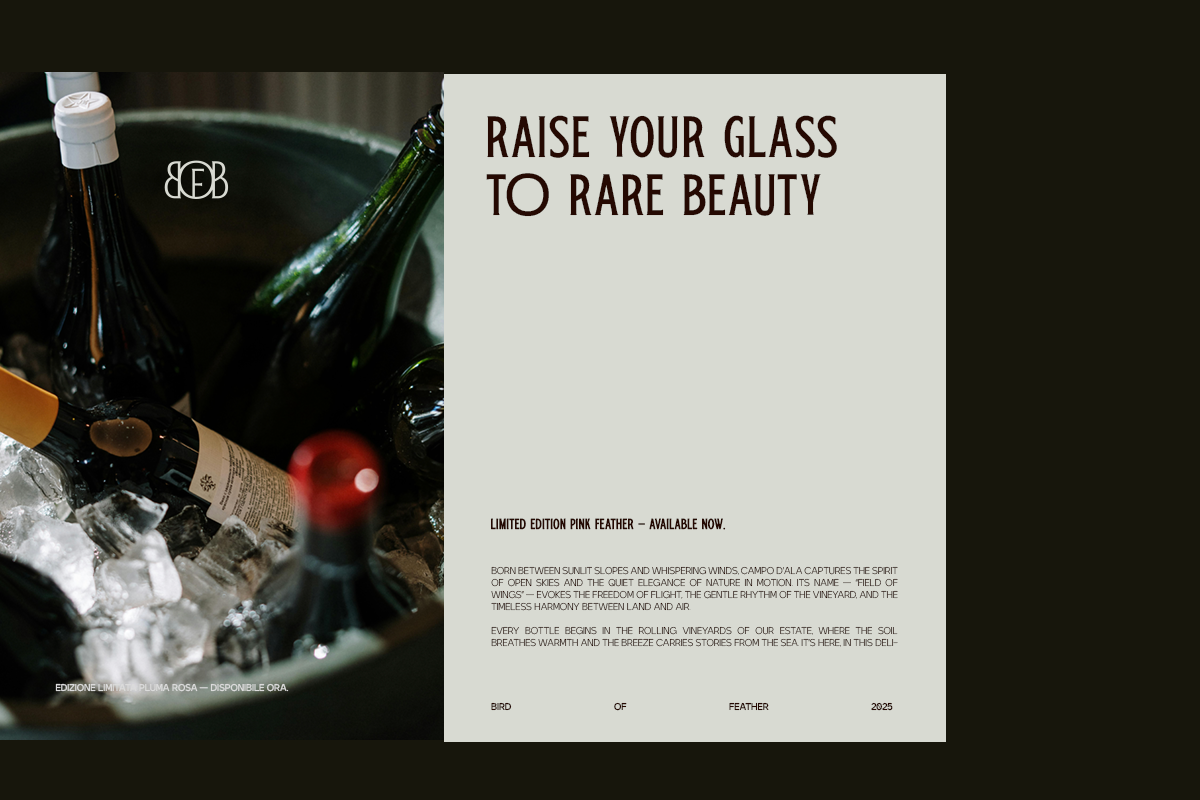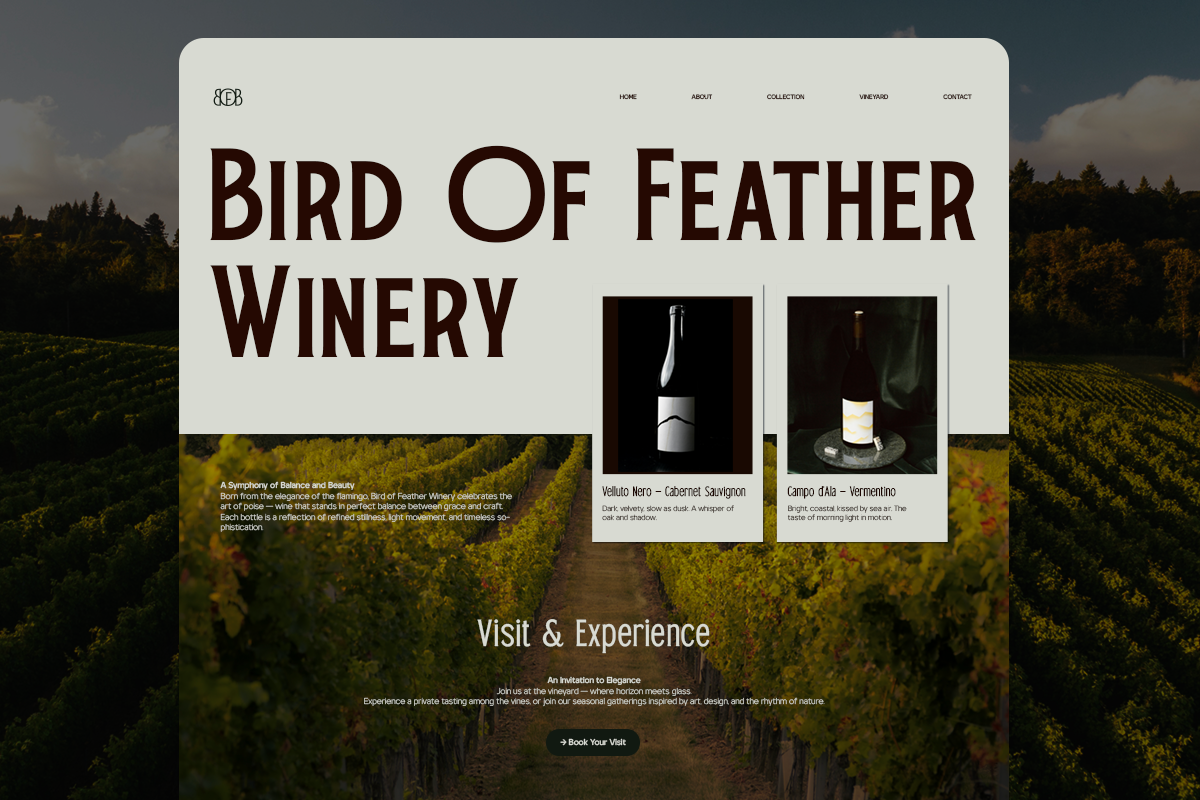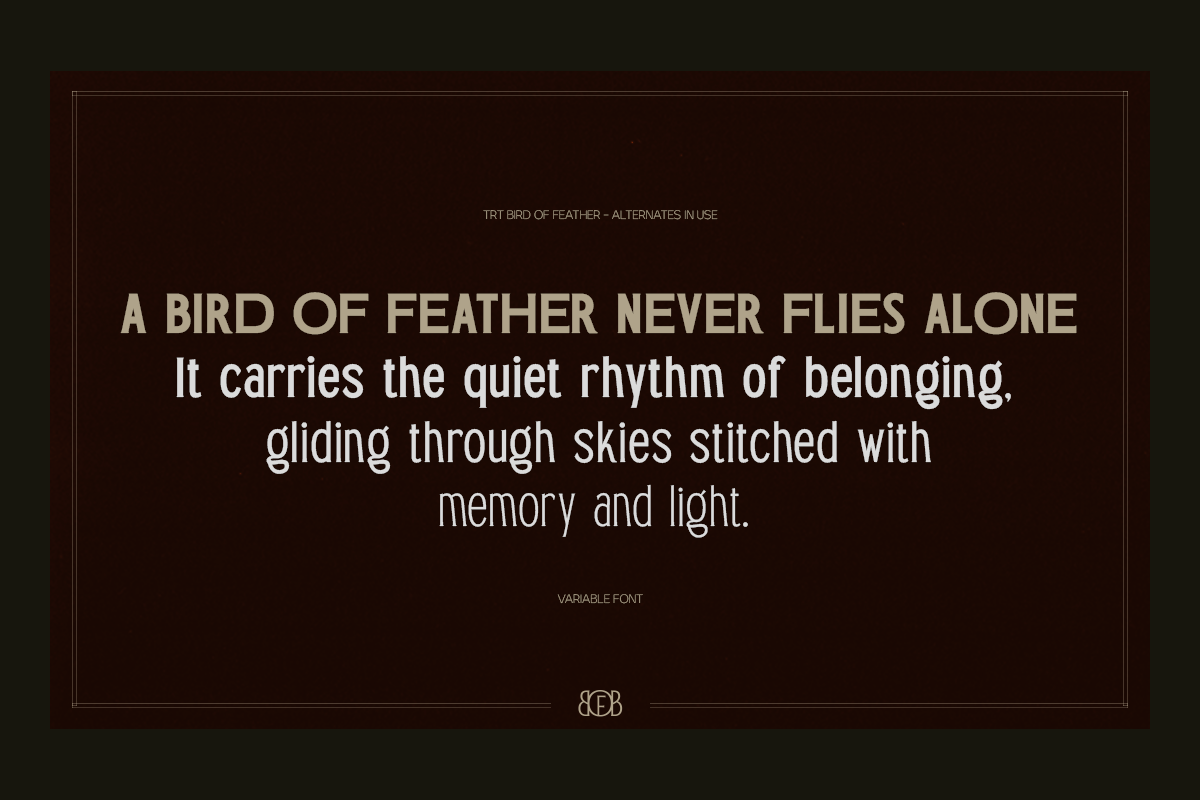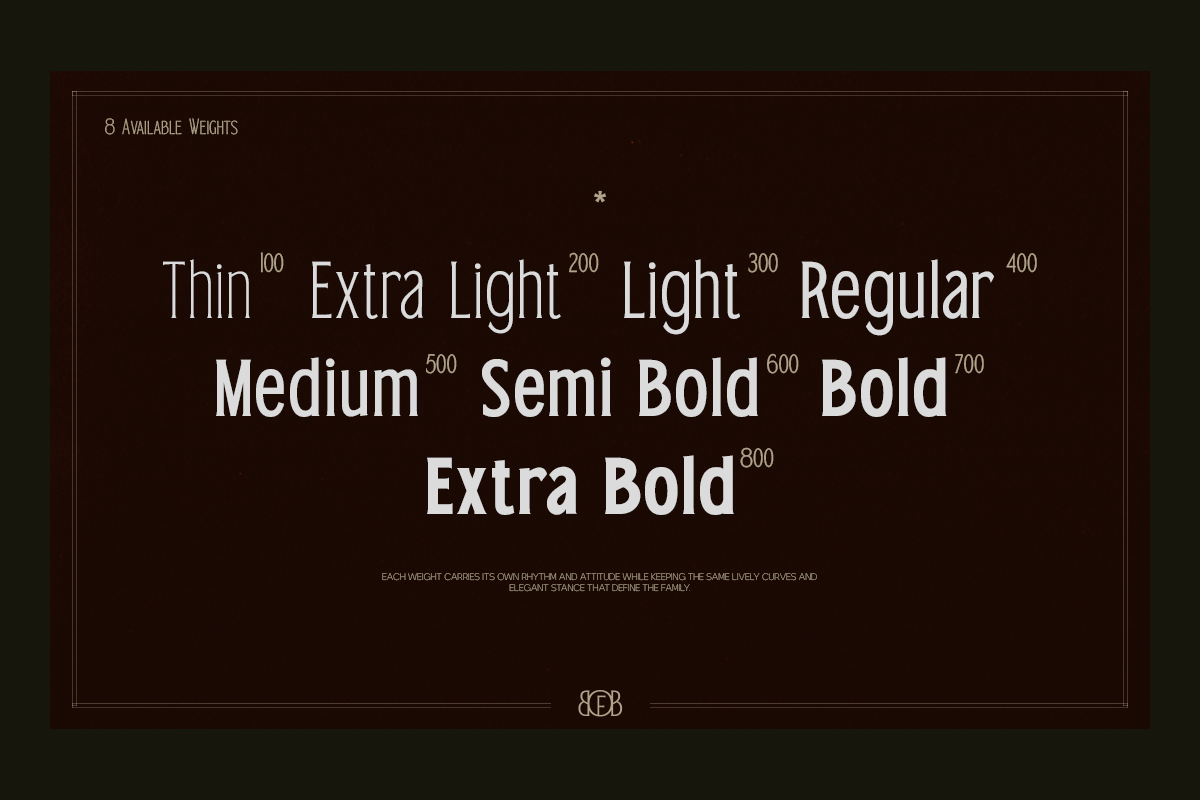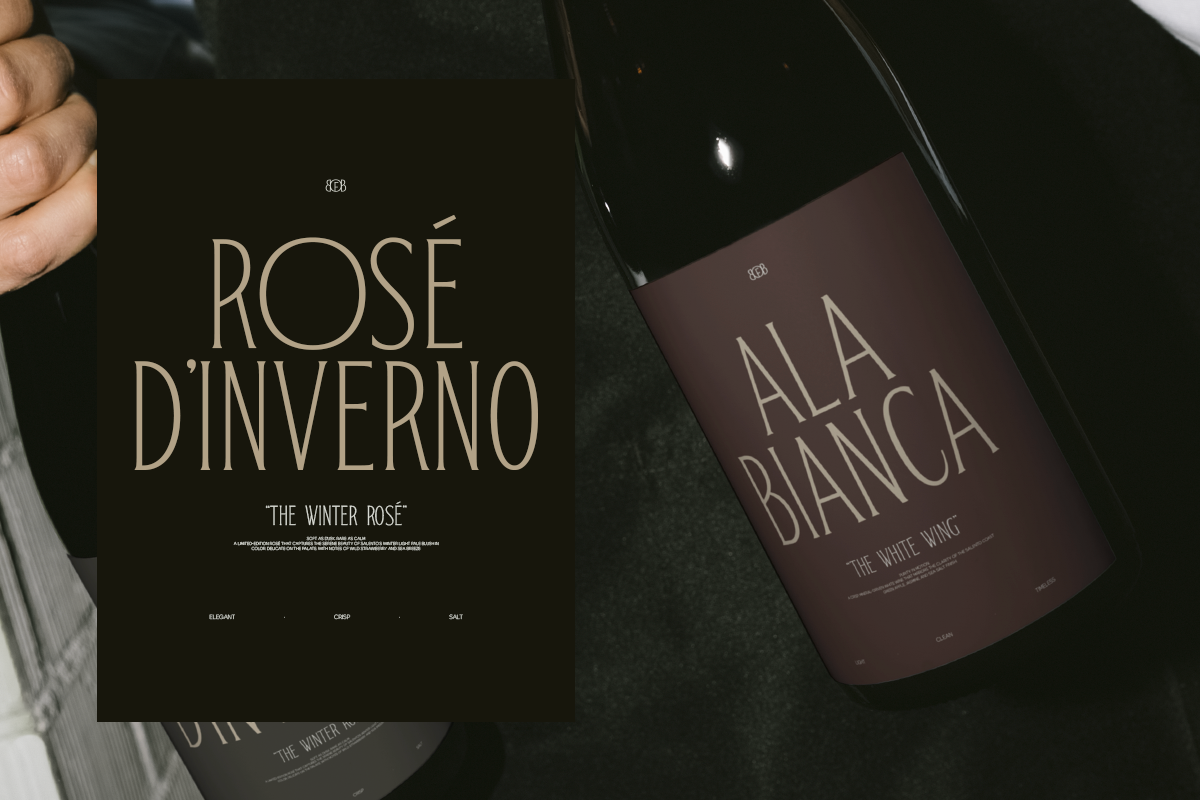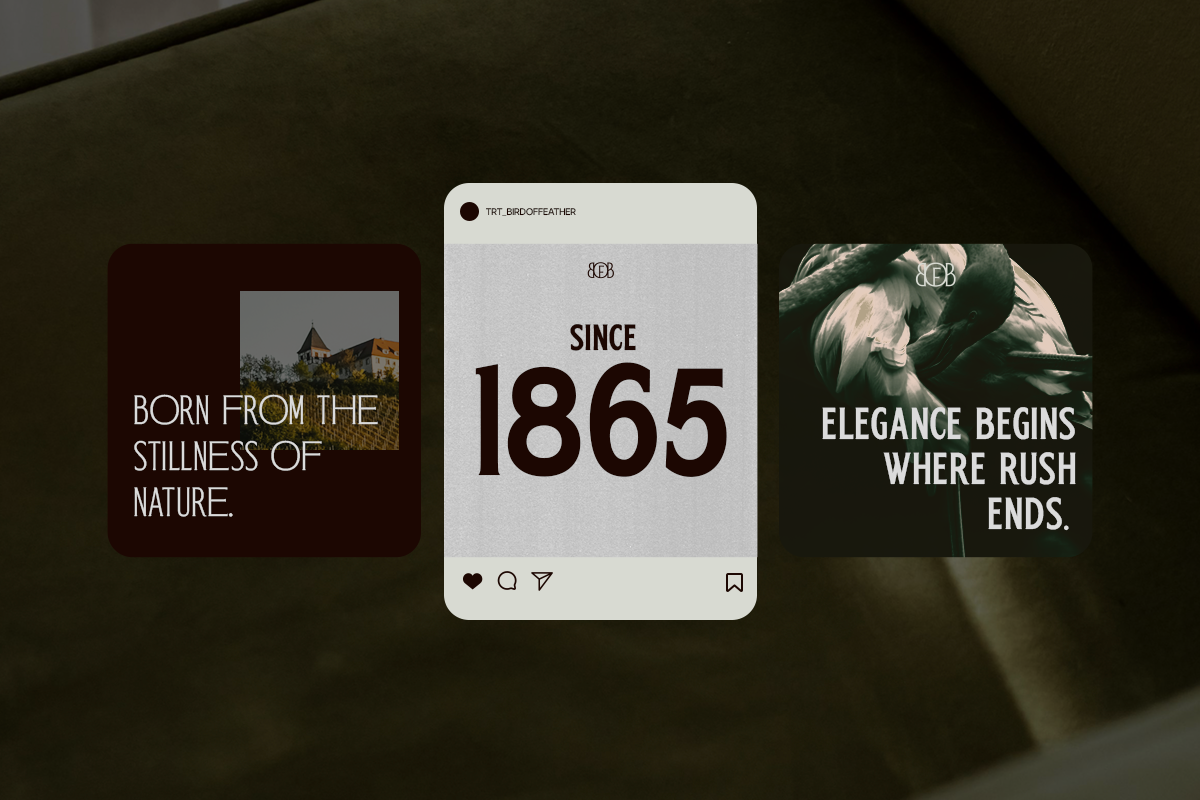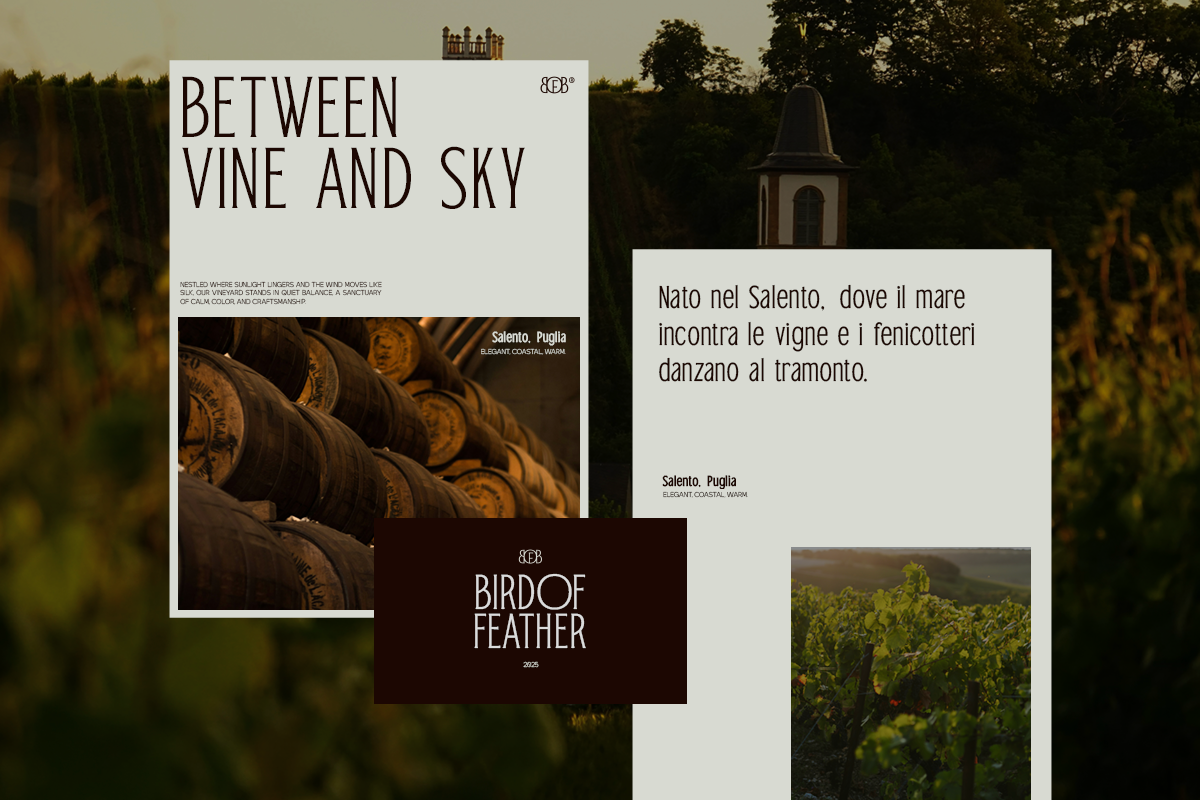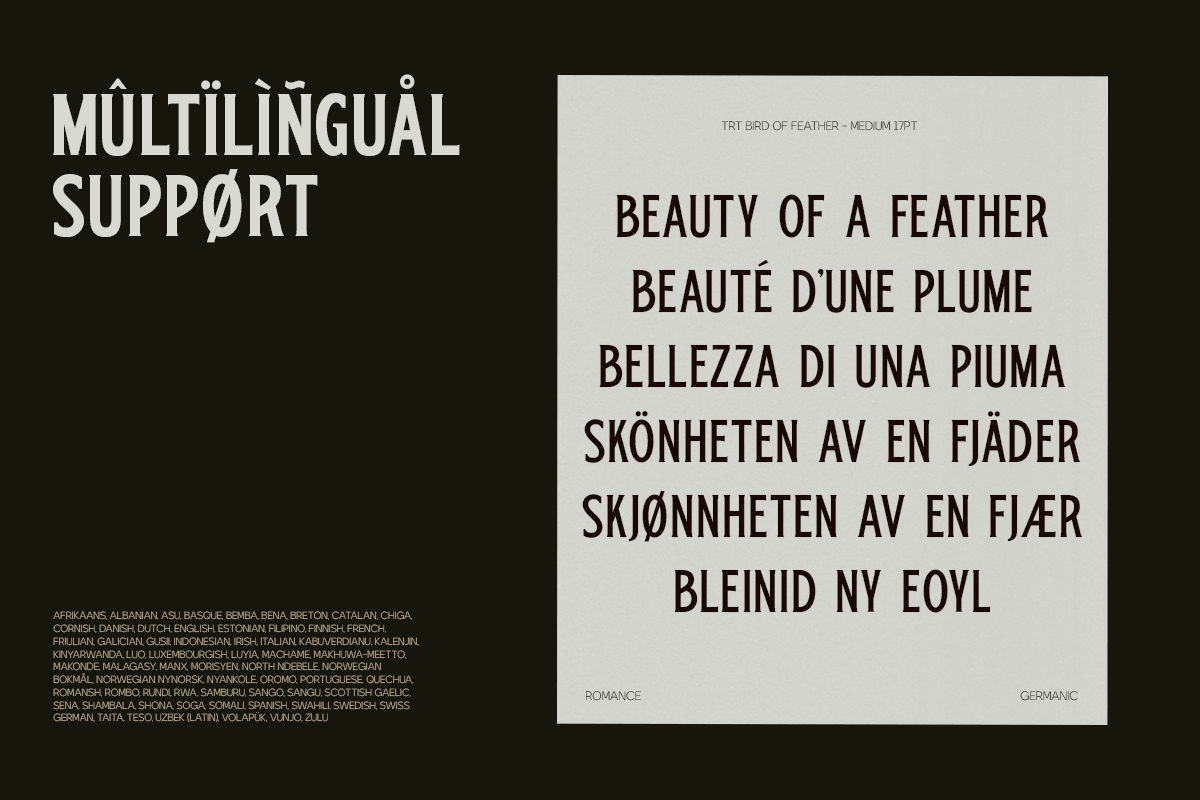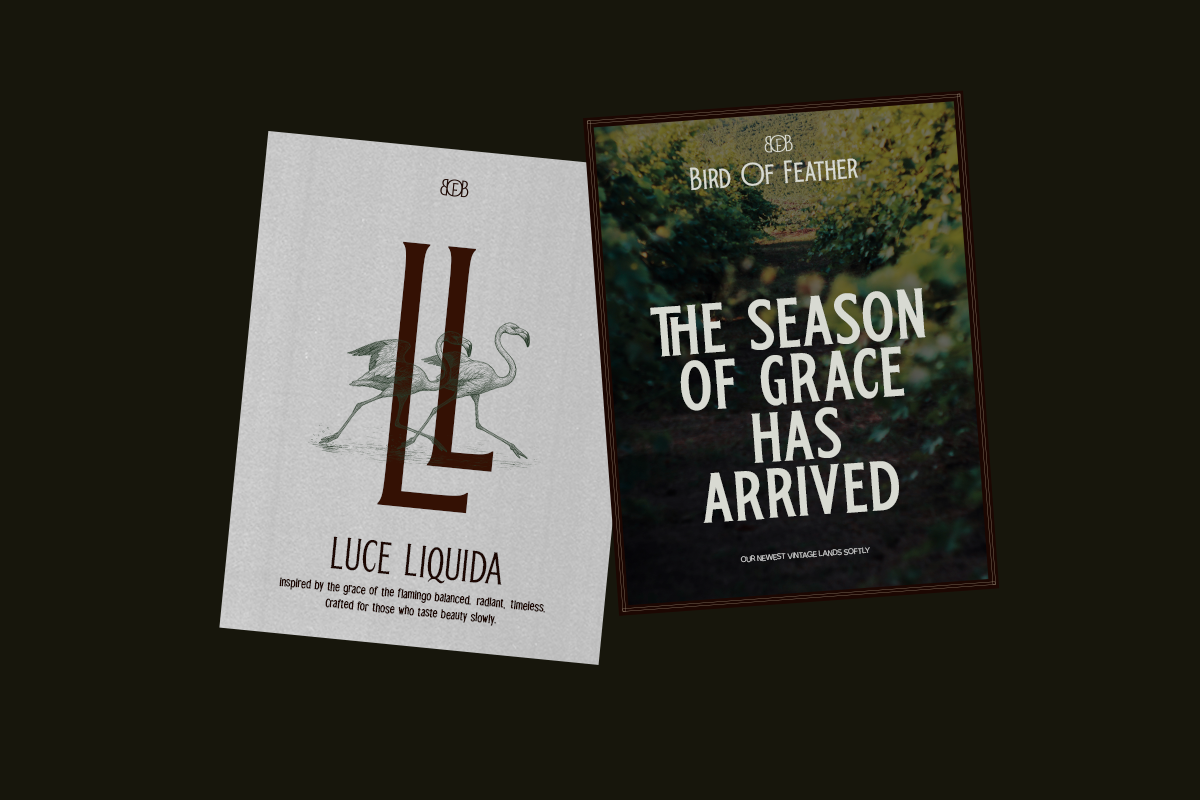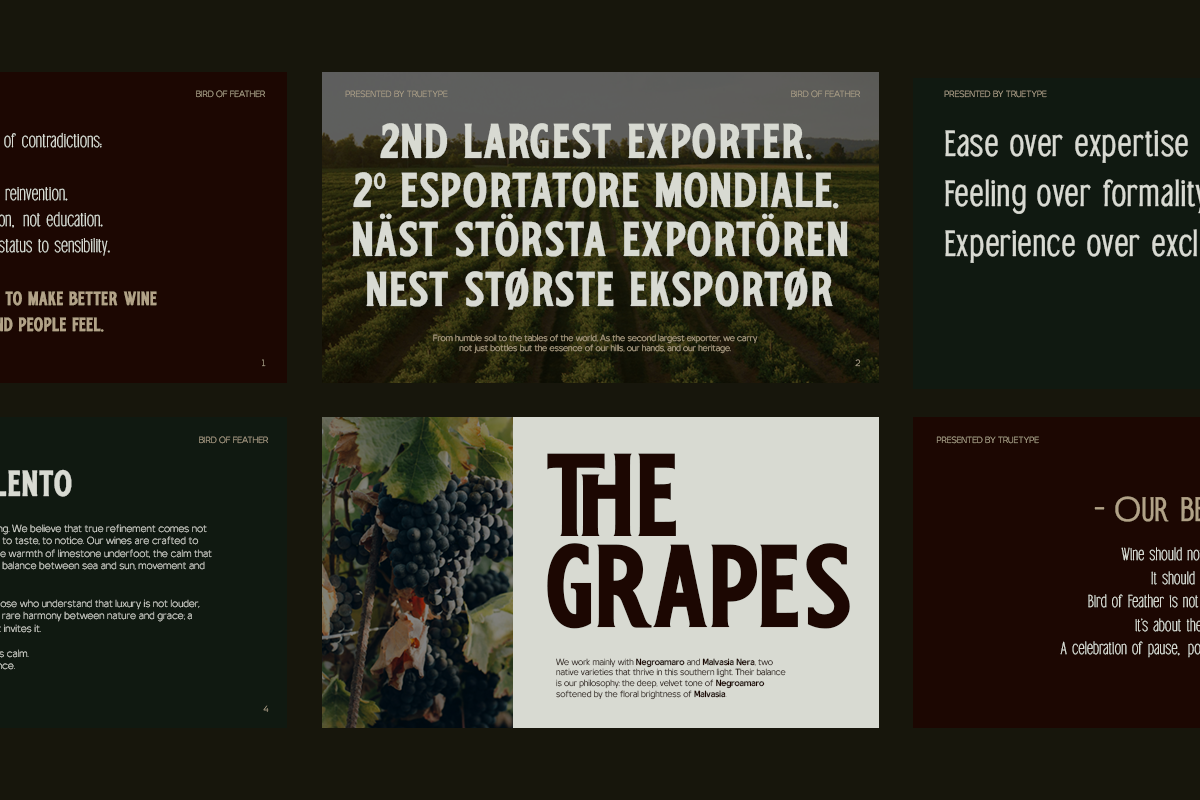
TRT Bird of Feather – Elegant Serif
TRT Bird of Feather is a refined serif typeface that marries timeless elegance with contemporary finesse. Designed with carefully sculpted serifs, balanced proportions, and a hint of charm, this font speaks with sophistication and clarity across a wide range of creative applications.
Its graceful curves and moderate contrast make it a versatile choice for editorial layouts, branding, book covers, logos, and luxury packaging. Whether used in headlines or long-form text, TRT Bird of Feather brings a unique voice — dignified, yet expressive.
This typeface blends the classic roots of serif typography with a modern design sensibility, making it equally at home in print and digital environments. Crafted for designers who value detail, character, and visual storytelling, TT Bird of Feather is more than just a font — it's a typographic experience.